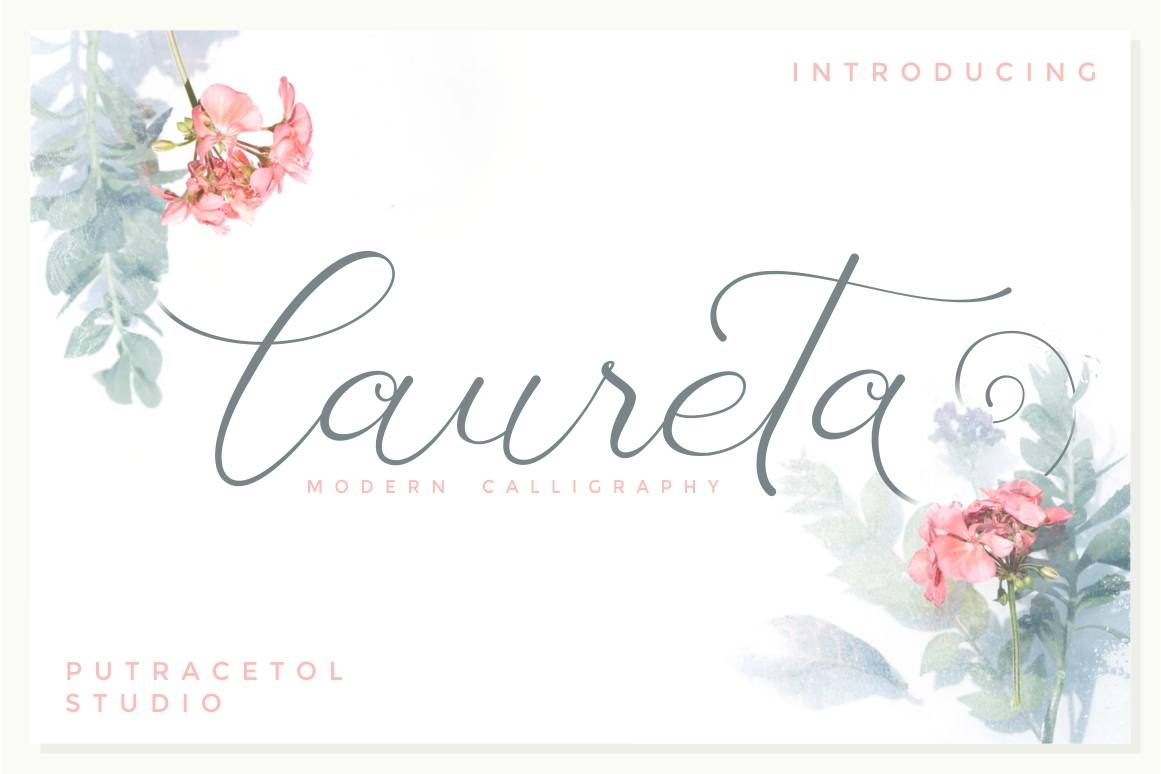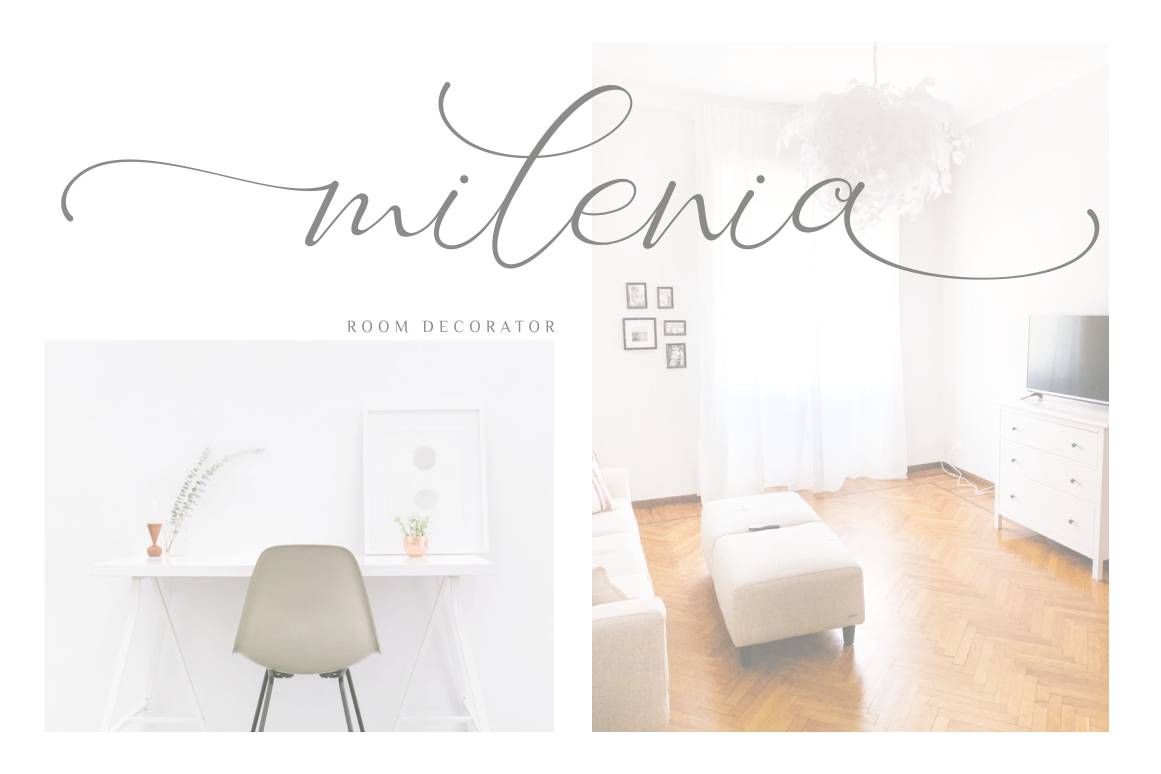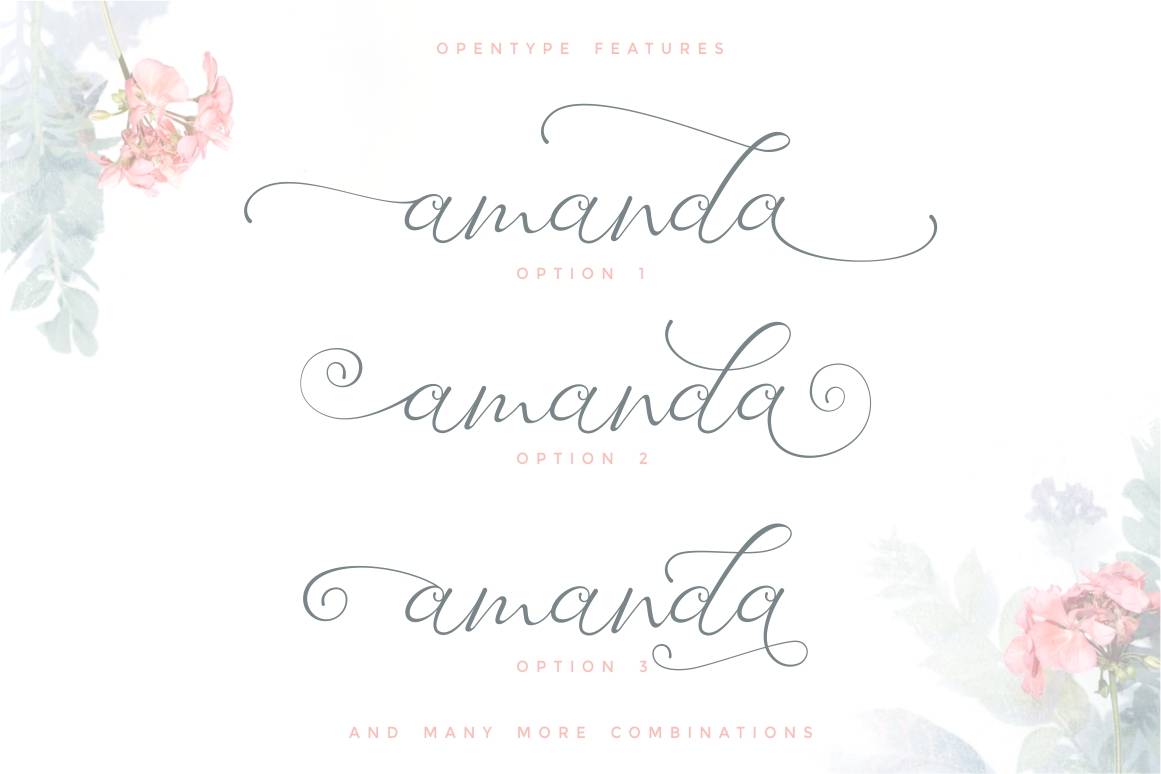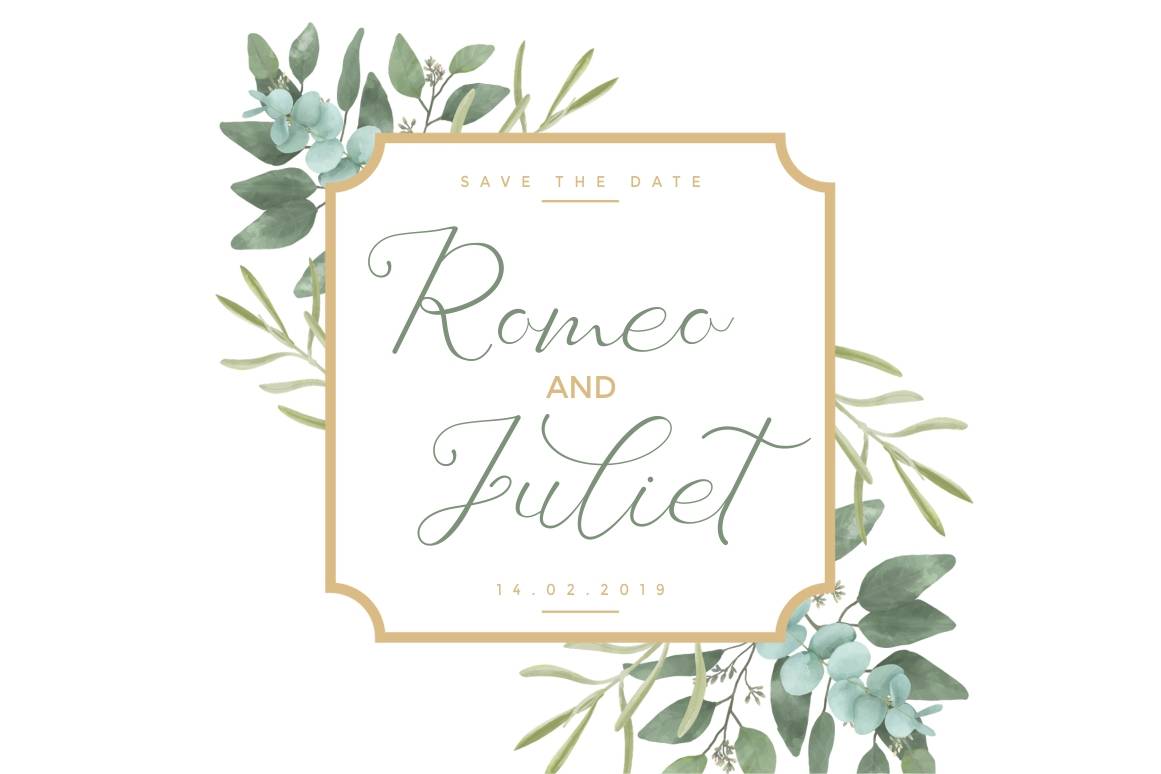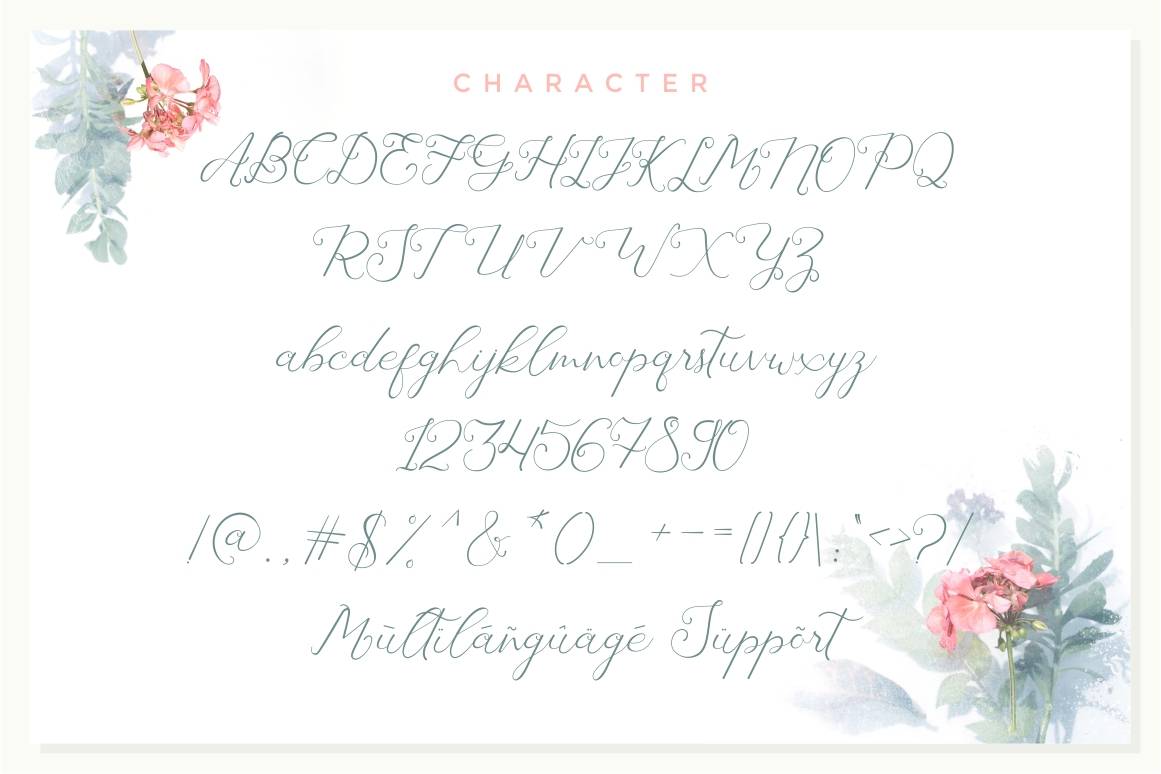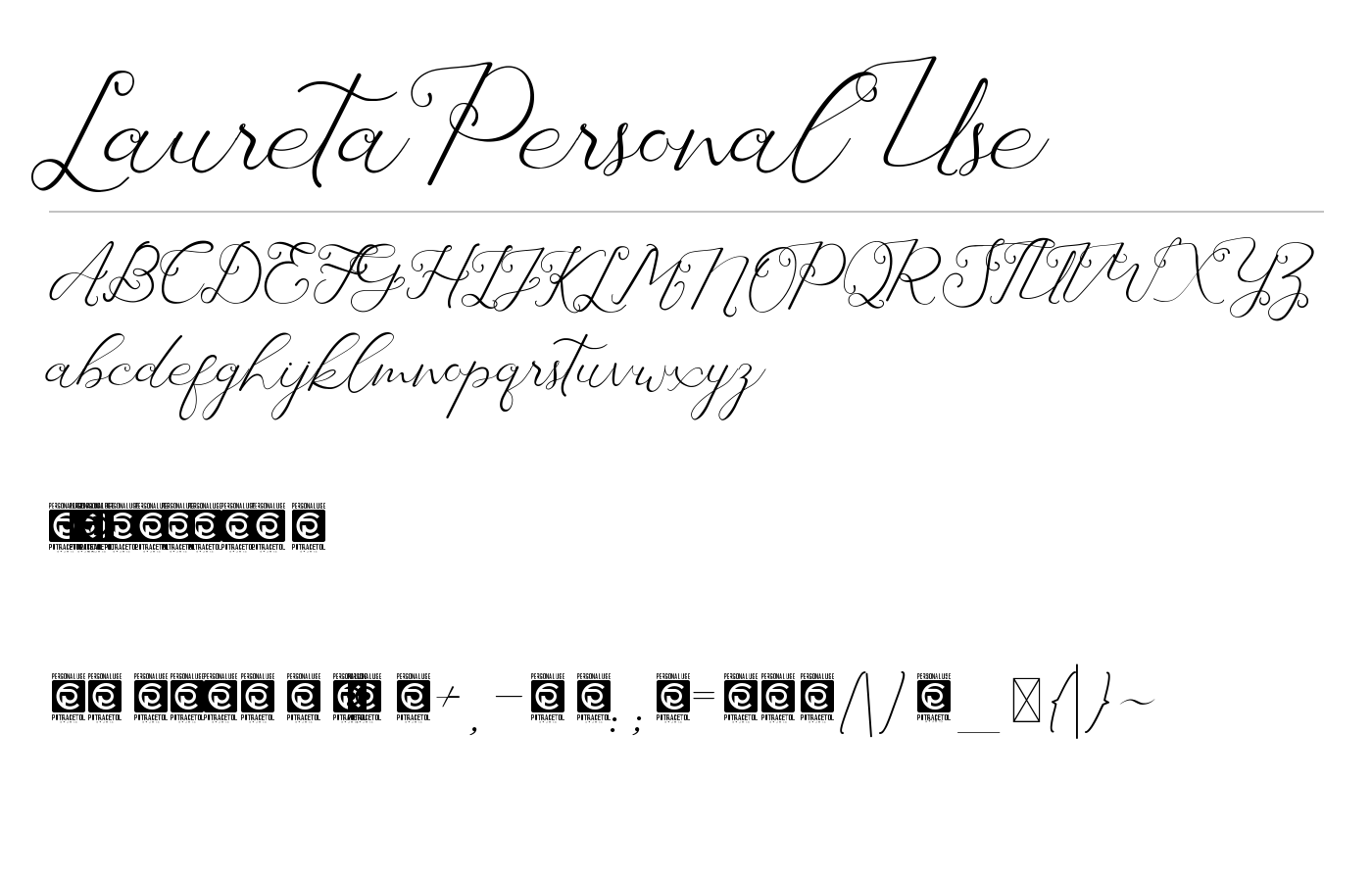
Laureta is an elegant script font with delicate, flowing strokes and ornate swashes that give it a graceful, handwritten feel. Its thin weight and intricate letterforms make it perfect for sophisticated invitations, branding, and decorative projects where a touch of refinement and femininity is desired. This font shines in contexts that call for a stylish and personal touch, enhancing the beauty and charm of any design.
Laureta Font
About Laureta Font